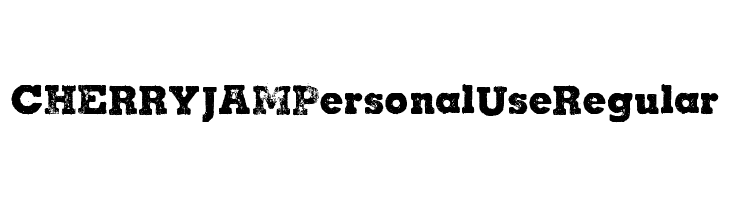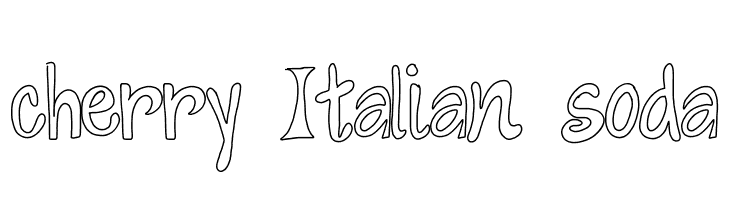
A playful, bold font with a hand-drawn, whimsical style.
A bold, hand-painted style font with textured, expressive characters.
A bold, playful font with rounded, condensed characters and a whimsical style.
A playful, rounded font with bold, smooth curves and a friendly vibe.
A playful, hand-drawn font with bold, consistent strokes and a whimsical charm.
A playful, dotted line font with a whimsical, hand-drawn style.
A bold, rugged font with a distressed, textured appearance.
A playful, bold handwritten font with a smooth, flowing style.
A playful, bold, and rounded font with a whimsical, bubbly appearance.